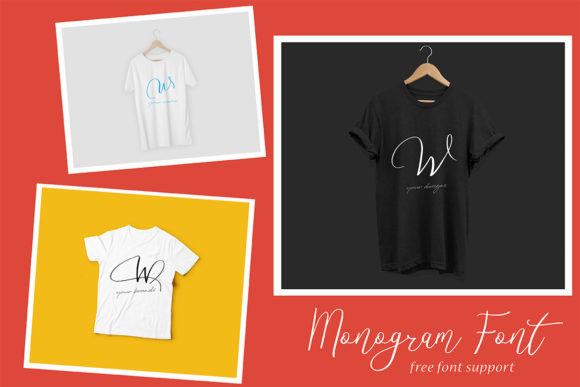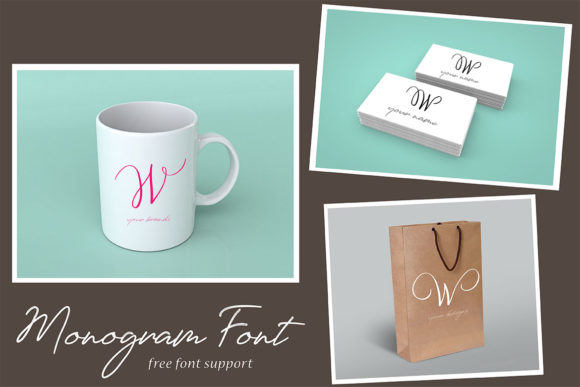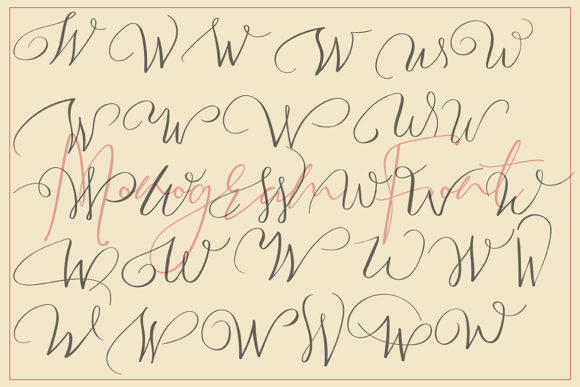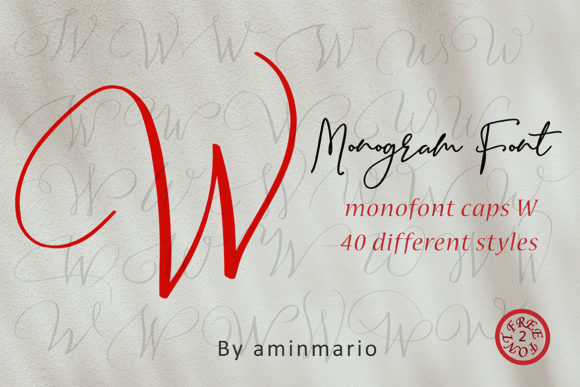
Monogram W | Monofont Caps W Font – Free Download
Introduction to Monogram W | Monofont Caps W Font
This MONOGRAM is natural handwriting of capital W with 36 different styles.
This is not for writing words or sentences, but for monograms Bonus 2 Font that contains the uppercase and lowercase to support it.